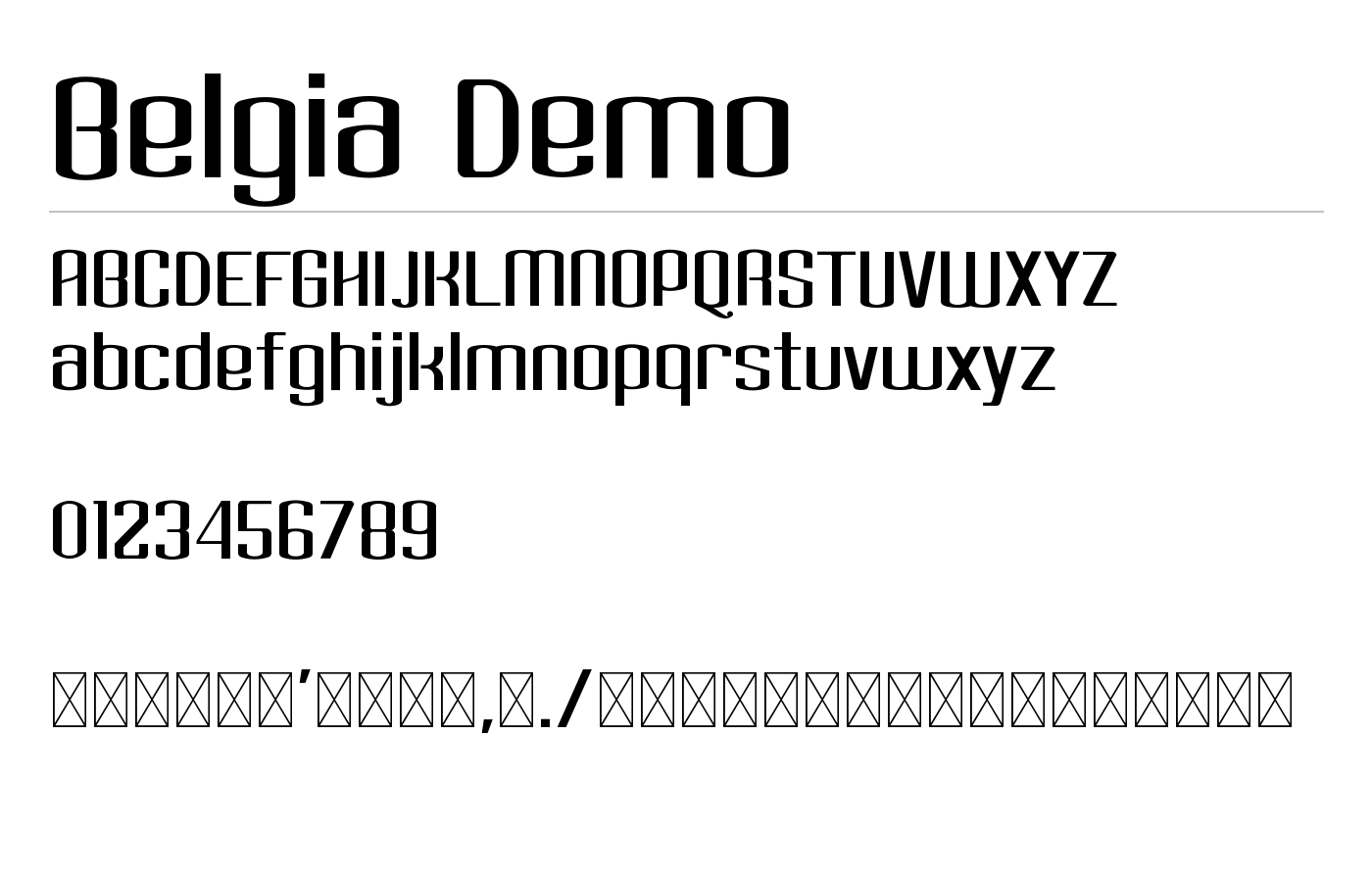
Belgia Demo is a condensed sans serif font characterized by its tall, narrow letterforms and consistent stroke weight, giving it a modern and streamlined appearance. Its sleek design with subtle geometric touches makes it ideal for contemporary branding, headlines, and editorial use where space efficiency and a clean, confident look are important. This font works well in projects that require a stylish yet straightforward typeface that stands out without being overly decorative.
Belgia Demo Font
About Belgia Demo Font